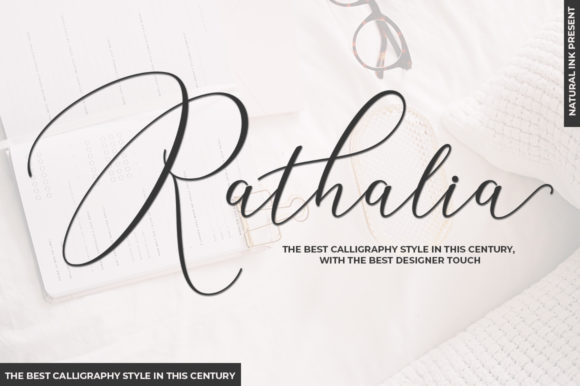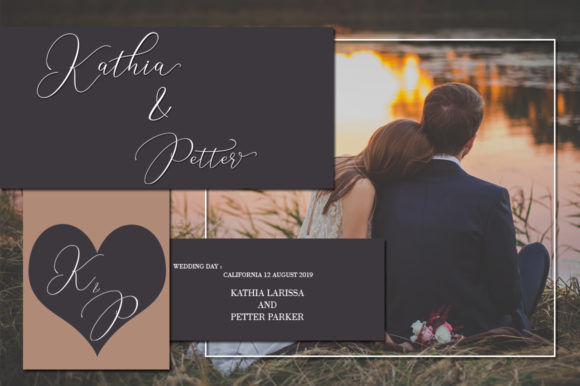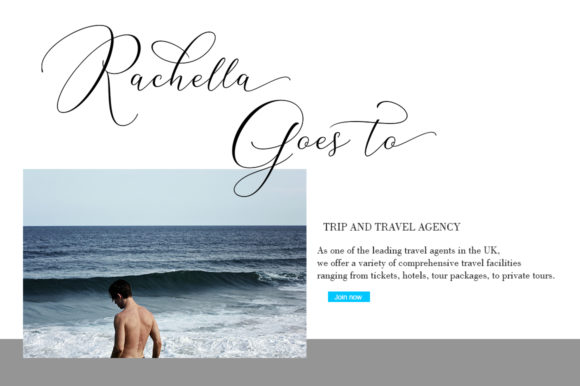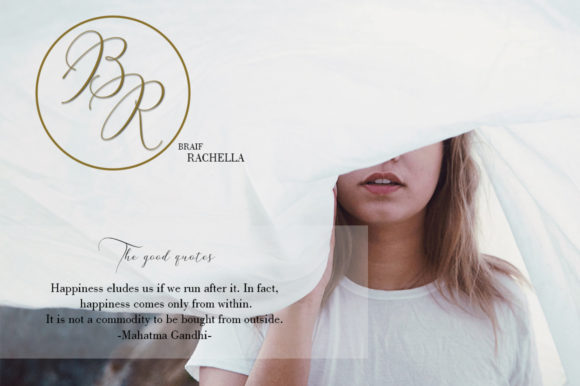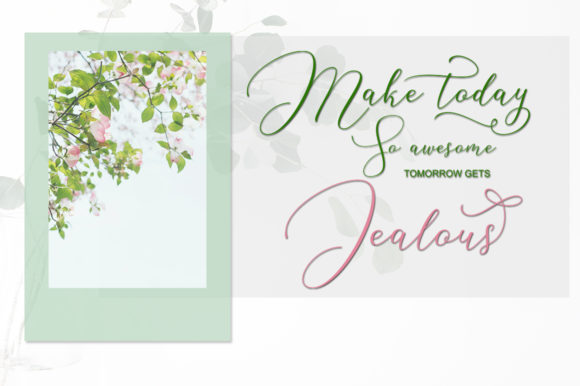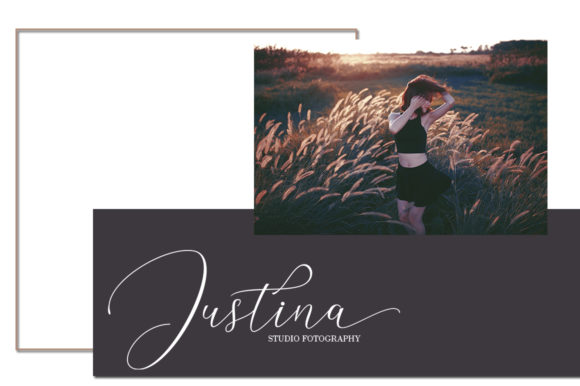
Rathalia Font
About Rathalia Font
The Rathalia is a modern calligraphy script. It has a casual look and is perfect for logos, product packaging, wedding invitations, branding, headlines, signage, labels, signature, book covers, posters, quotes and more.